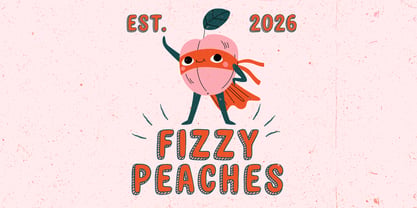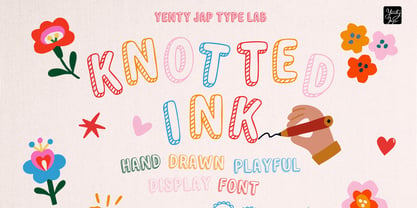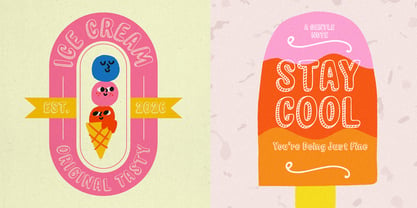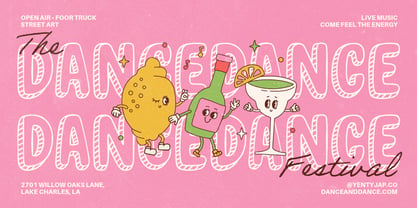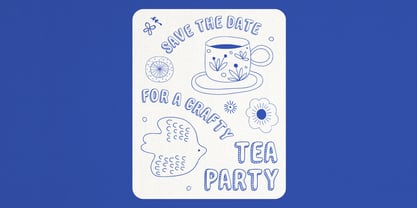
YJ Knotted Ink
by Yenty Jap Co
The YJ Knotted Ink Font Family was designed by Yenty Jap and published by Yenty Jap Co. YJ Knotted Ink contains 1 styles. More about this family
YJ Knotted Ink is a bold, hand-drawn display font that feels like ink on paper and a friendly wave hello. It’s imperfect in the best way — rounded, textured, and full of personality — like something made slowly, by hand, with care. This font was designed for creators who love things that feel real, handmade, and approachable. The knotted ink texture gives every letter a cozy, stamped look, making your words feel warm instead of loud, playful instead of polished. YJ Knotted Ink shines in: Handmade product branding (candles, soaps, skincare, packaging) Etsy shops and small business logos Labels, stamps, and thank-you cards Social media posts, reels, and quote graphics Posters, signs, and playful headlines Font features at a glance YJ Knotted Ink includes thoughtful details designed to make creating easier and more enjoyable: Style: Hand-drawn display font with bold, organic strokes Mood: Playful, warm, friendly, and human Extra: arrows symbol Multilingual support Format: Easy to use across print and digital projects Every detail was drawn with care — imperfect on purpose, just like the best handmade things. It’s easy to read, full of charm, and brings a gentle smile wherever it goes — like a little hug in font form. If your brand believes in made by hand, packed with care, and shared with heart, YJ Knotted Ink will feel right at home.
YJ Knotted Ink